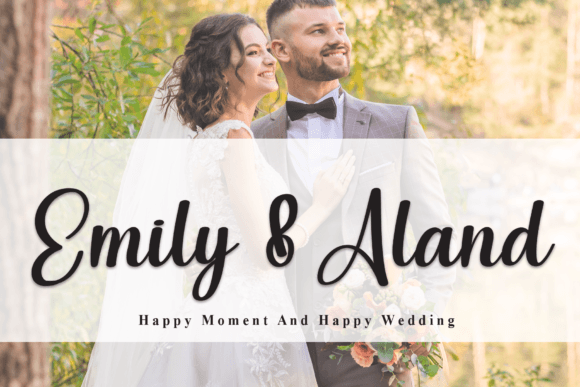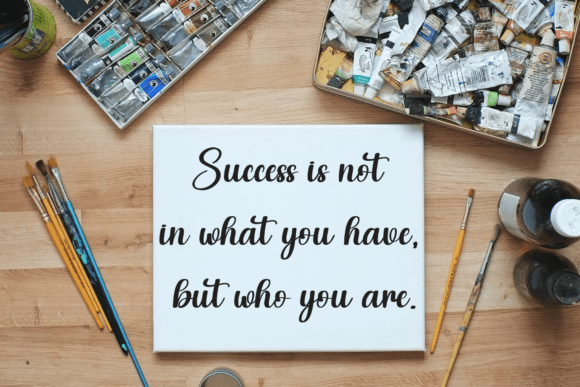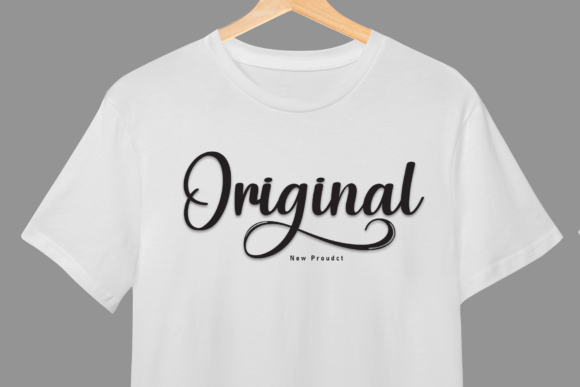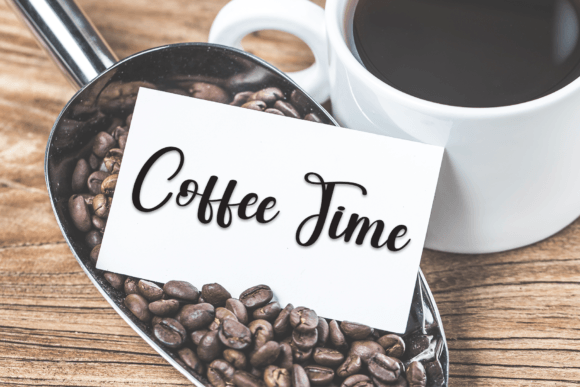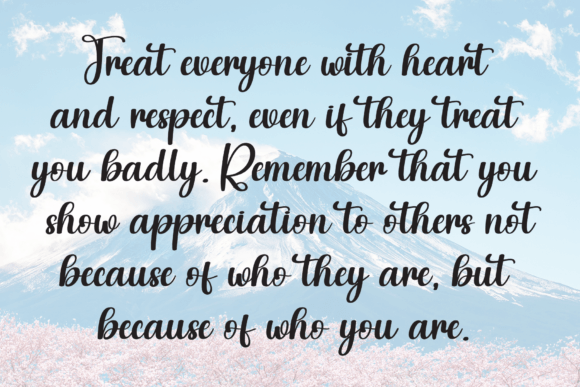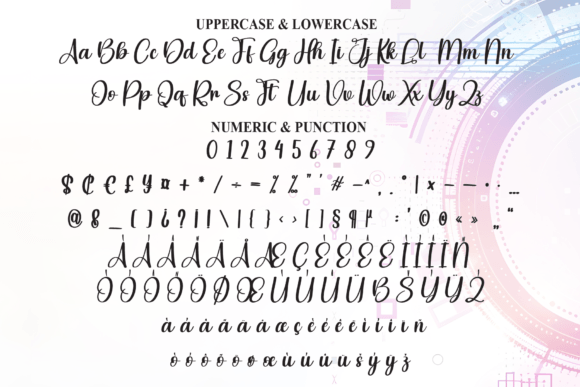
Embracing the Charm of Digital: A Casual Handwritten Font
In the vast universe of digital typography, finding the perfect font that resonates with your project’s personality can be a daunting task. However, if you’re looking for a typeface that embodies a relaxed, friendly, and casual vibe, then Digital, a charming handwritten font, might just be what you’re searching for. Digital is not just any ordinary font; it’s a carefully crafted typeface designed to bring a natural, effortless charm to your designs, making it an ideal choice for personal projects, social media content, and invitations.
The Essence of Digital Font
Digital font is characterized by its natural, flowing strokes that mimic the authenticity of handwritten text. Its design is centered around creating a sense of warmth and approachability, making it perfect for projects that aim to connect with their audience on a more personal level. The font’s casual and friendly demeanor ensures that your content stands out with a unique charm that is hard to replicate with more formal typefaces.
Ideal Applications for Digital Font
The versatility of Digital font makes it suitable for a wide range of applications. Here are a few areas where Digital truly shines:
- Personal Projects: Whether you’re crafting a personal blog, a portfolio, or simply want to add a personal touch to your digital presence, Digital offers a unique and engaging way to present your content.
- Social Media: In the realm of social media, standing out is key. Digital font can add a distinctive flair to your posts, stories, and captions, making your content more approachable and engaging to your followers.
- Invitations: For those special occasions, such as weddings, birthday parties, or baby showers, Digital can add a warm, personal touch to your invitations, setting the tone for a memorable event.
The Benefits of Using Digital Font
Choosing Digital font for your projects comes with a multitude of benefits:
- Effortless Charm: Digital brings an effortless, charming touch to any design, making your content more appealing and engaging.
- Warmth and Authenticity: The easygoing style of Digital adds a layer of warmth and authenticity to your designs, helping you connect with your audience on a more personal level.
- Versatility: Its casual and friendly vibe makes Digital a versatile font that can be used across various platforms and project types.
Tips for Using Digital Font Effectively
To maximize the impact of Digital font in your designs, consider the following tips:
- Pair with Complementary Fonts: For headings and subheadings, consider pairing Digital with a more formal or contrasting font to create visual hierarchy and interest.
- Adjust Font Sizes: Play with different font sizes to emphasize certain parts of your content and create a more dynamic layout.
- Use Color Wisely: The friendly nature of Digital font can be further emphasized by using warm and inviting colors that complement its casual vibe.
Digital font is a unique and charming typeface that can add a relaxed, friendly touch to any design project. Its natural, flowing strokes and effortless charm make it an excellent choice for designers and crafters looking to infuse their work with warmth and authenticity. Whether you’re working on personal projects, social media content, or special invitations, Digital is sure to bring a distinctive and engaging flair to your designs. Embrace the charm of Digital and discover how it can elevate your typography to new heights.